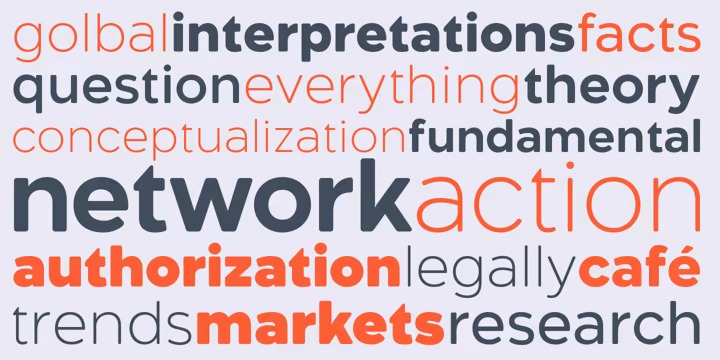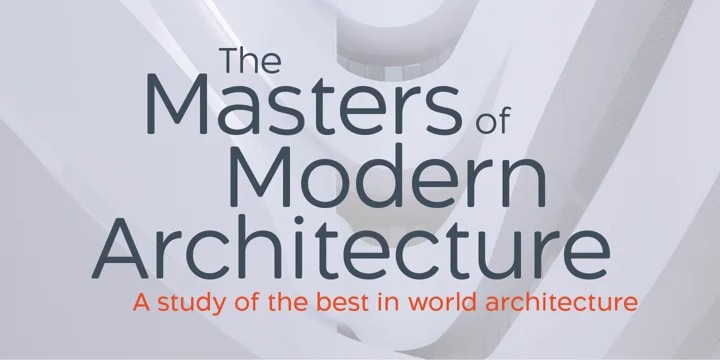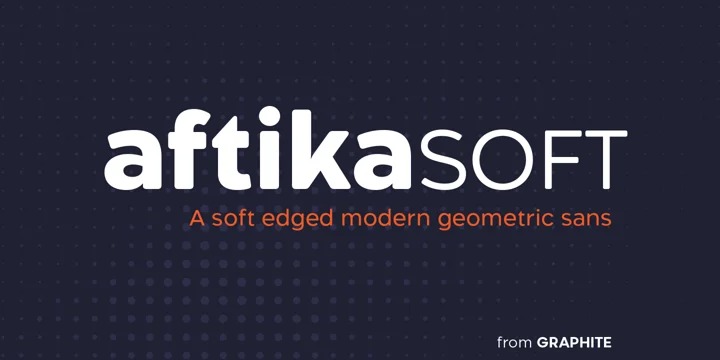
Aftika Soft Font Family
Aftika Soft Sans Serif Font
This is a grotesque sans serif typeface created by Graphite with chubby proportions in 7 weights Extra Light- Light – Regular – SemiBold – Bold – Extra Bold – Black and supports all latin languages. Characterised by a prominent x-height, it is well suited for advertising, packaging, editorial and publishing, logos, branding, posters, billboards, signage as well as for small text for print or digital screens.